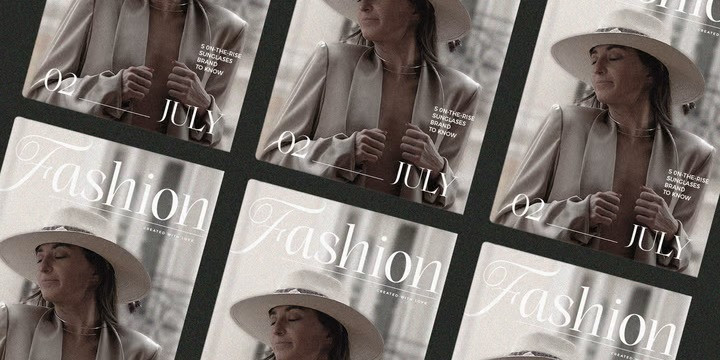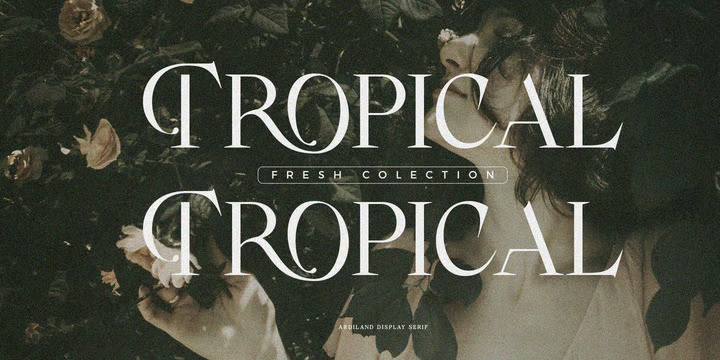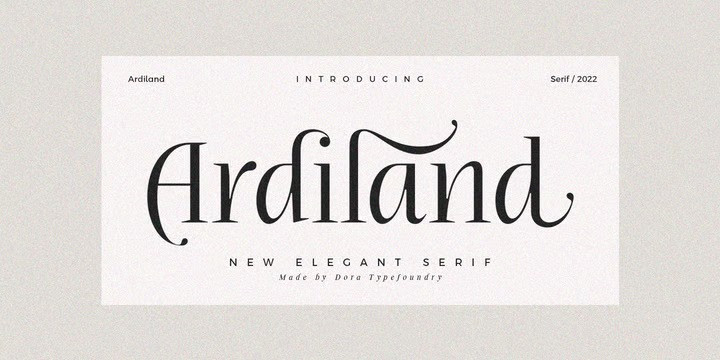
Ardiland Font
Ardiland Serif Font Family a stylish serif with beautiful binders and substitutes!
Ardiland is a modern serif font to apply to many graphic or editorial design projects. A classy, ​​unique high contrast, and light binding style for your upcoming projects. for feminine logo signs, fashion & editorial design heads, branding projects, Apparel Branding, packaging, magazine titles, advertisements, T-shirts, postcards and other special occasions.